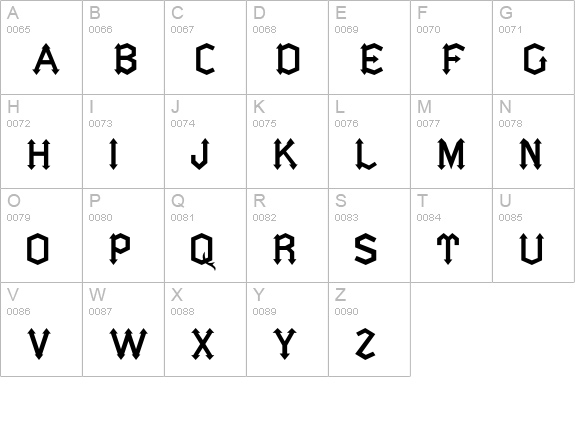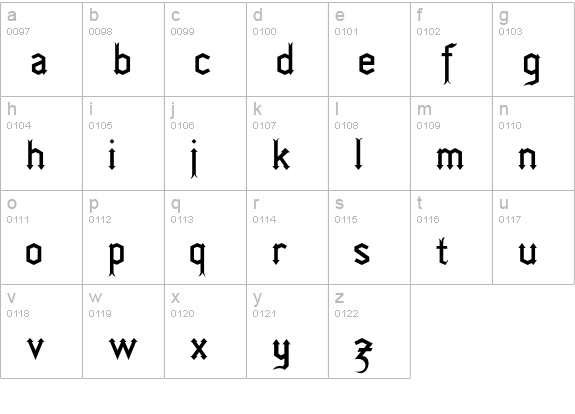
ArrowheadLake Font Details
ArrowheadLake is a stunning and versatile font that is sure to make a statement in any design project. With its bold and dynamic letterforms, this font is perfect for headlines, logos, posters, and more. The unique arrowhead-inspired design adds a touch of excitement and energy to your typography, making it stand out from the crowd. One of the best features of ArrowheadLake is that it is completely free to download. Available exclusively at FontsMarket.com, this font allows you to add a professional and stylish touch to your designs without breaking the bank. Whether you are a graphic designer, a blogger, or simply someone looking to add a little flair to your personal projects, ArrowheadLake is the perfect choice. Not only is ArrowheadLake visually stunning, but it also offers excellent legibility and readability. Its clean and well-defined letterforms ensure that your message is conveyed effortlessly to your audience. This font is designed to be eye-catching and memorable, ensuring that your designs leave a lasting impression. ArrowheadLake is highly versatile and can be used in a variety of design styles. Whether you are going for a modern and sleek look or a more vintage and retro feel, this font can adapt to your needs. Its bold and confident appearance makes it suitable for both digital and print media, allowing you to use it across different platforms and applications. With ArrowheadLake, you have the freedom to create stunning designs that truly reflect your unique style and personality. Its free availability at FontsMarket.com means that you can easily access and download this font, making it a valuable addition to your font collection. In conclusion, ArrowheadLake is a visually striking font that combines bold design with excellent legibility. Its versatility and free availability make it an ideal choice for designers of all levels. So why wait? Download ArrowheadLake today and elevate your designs to new heights.